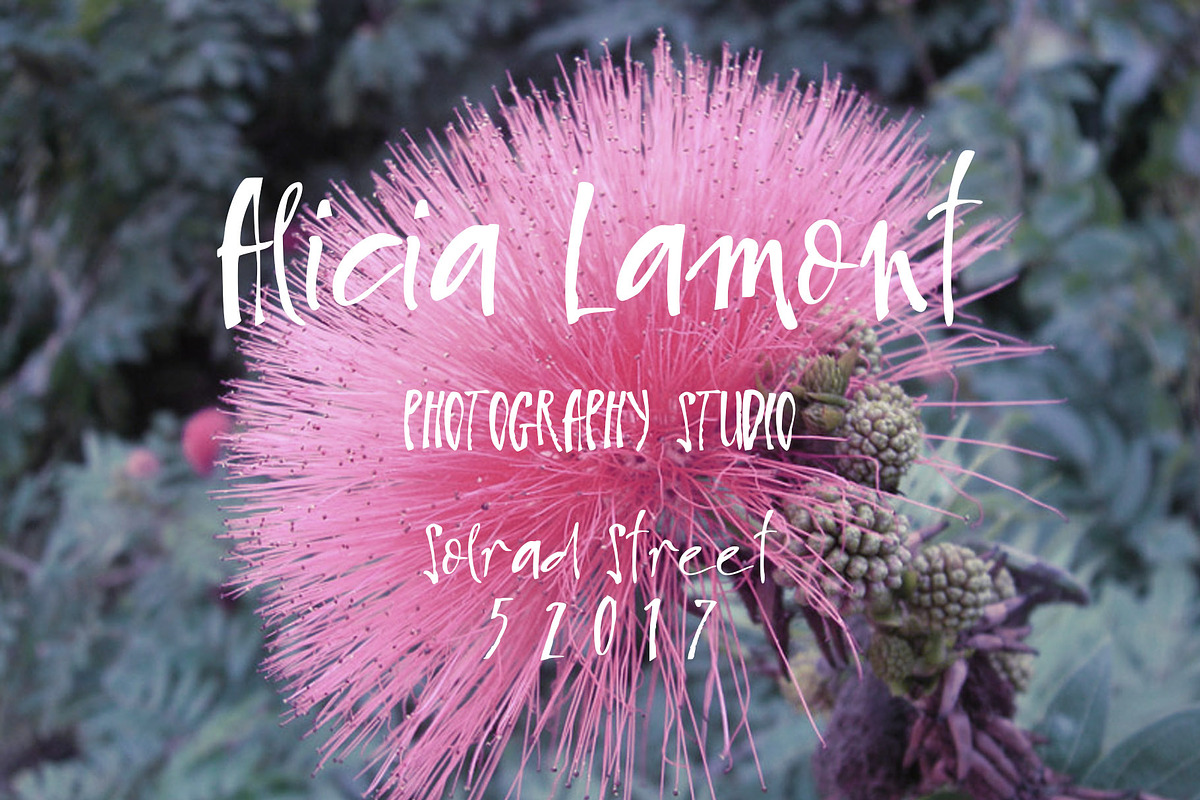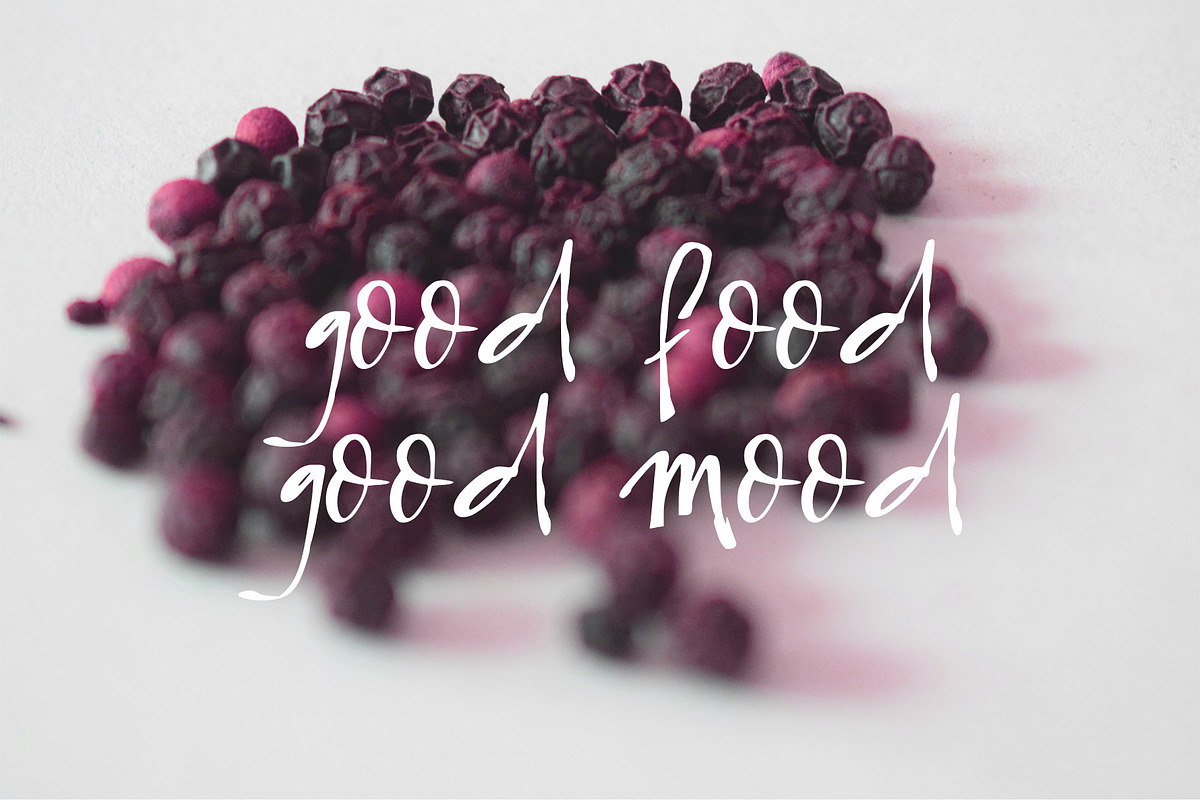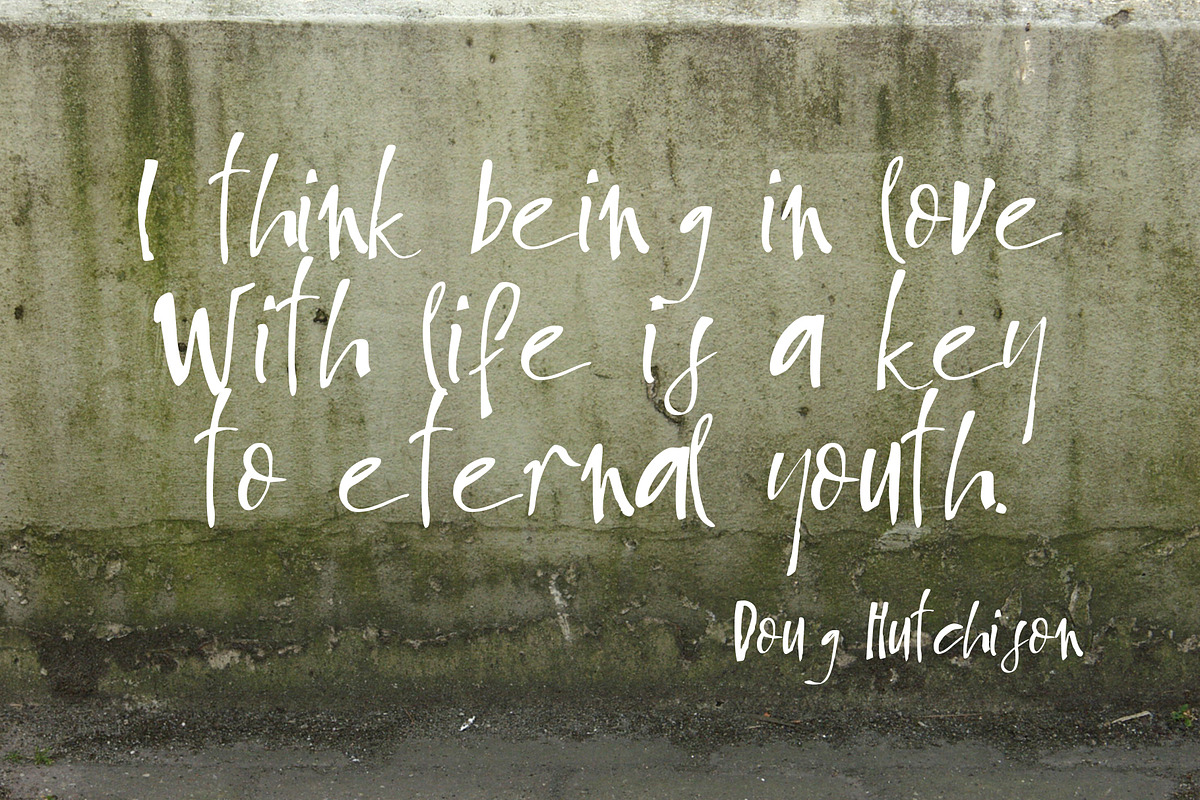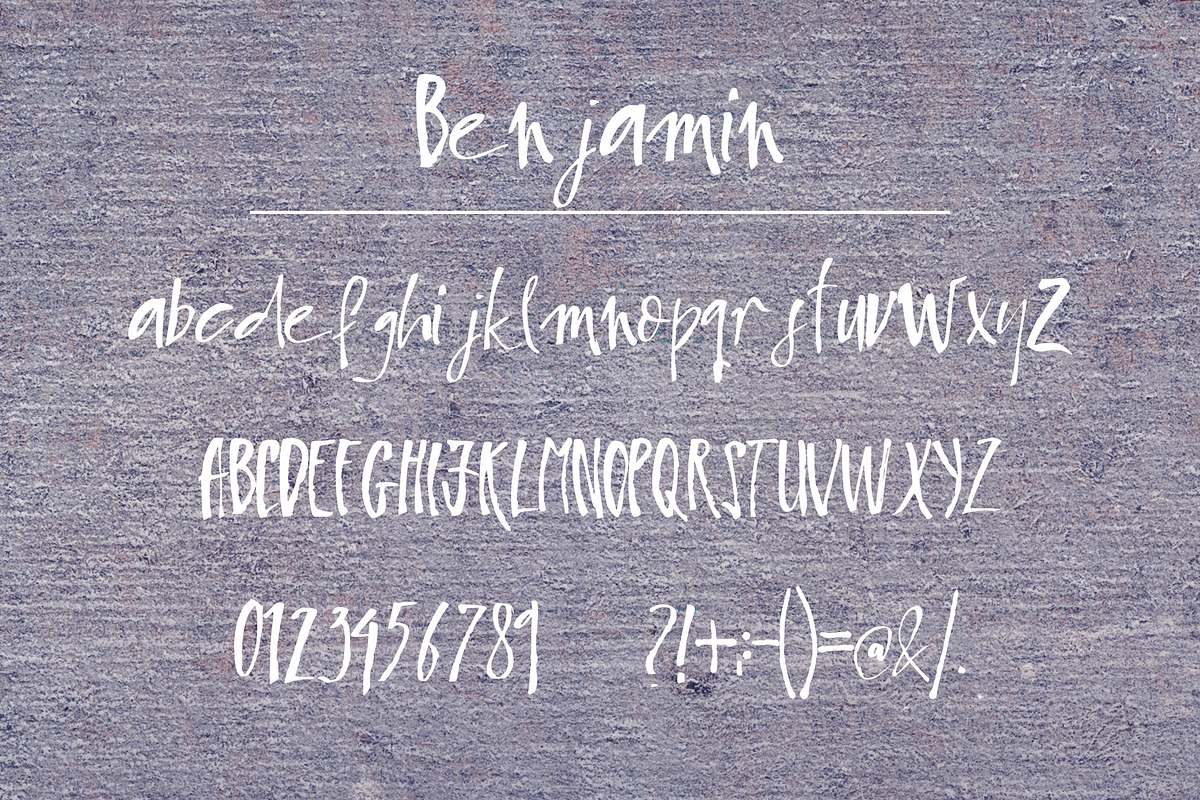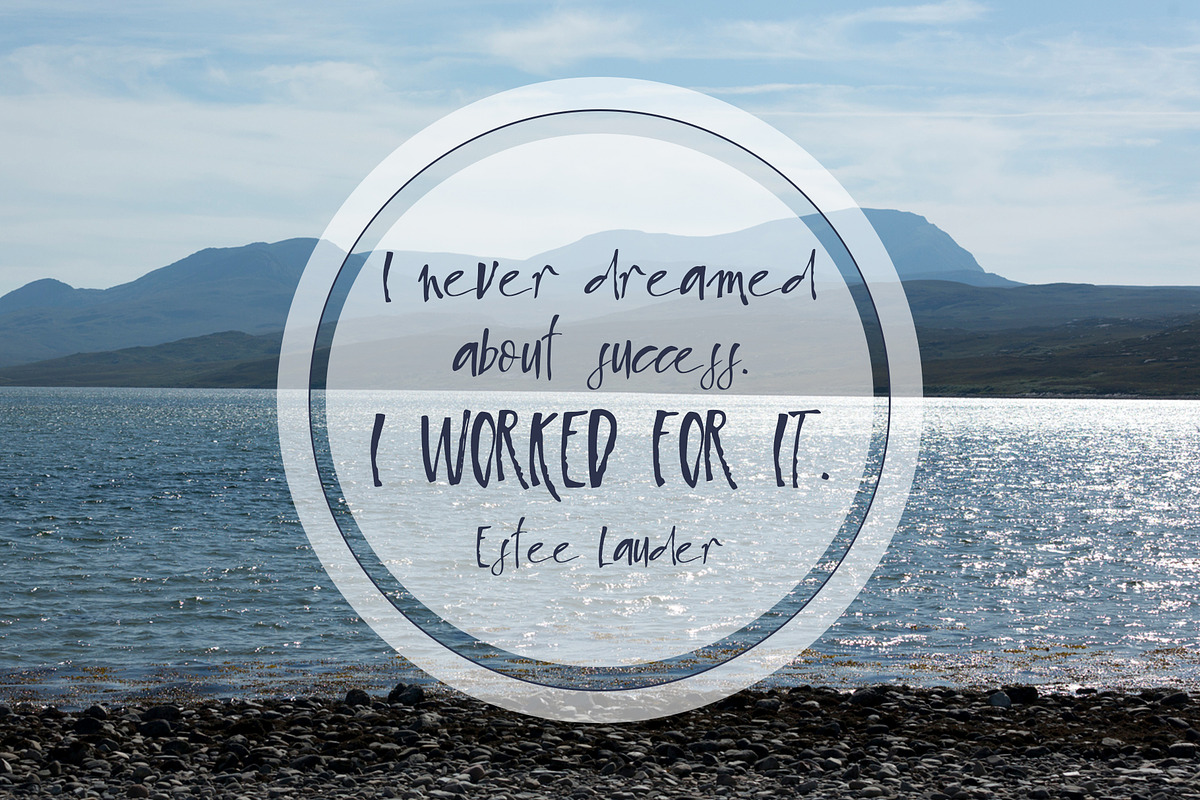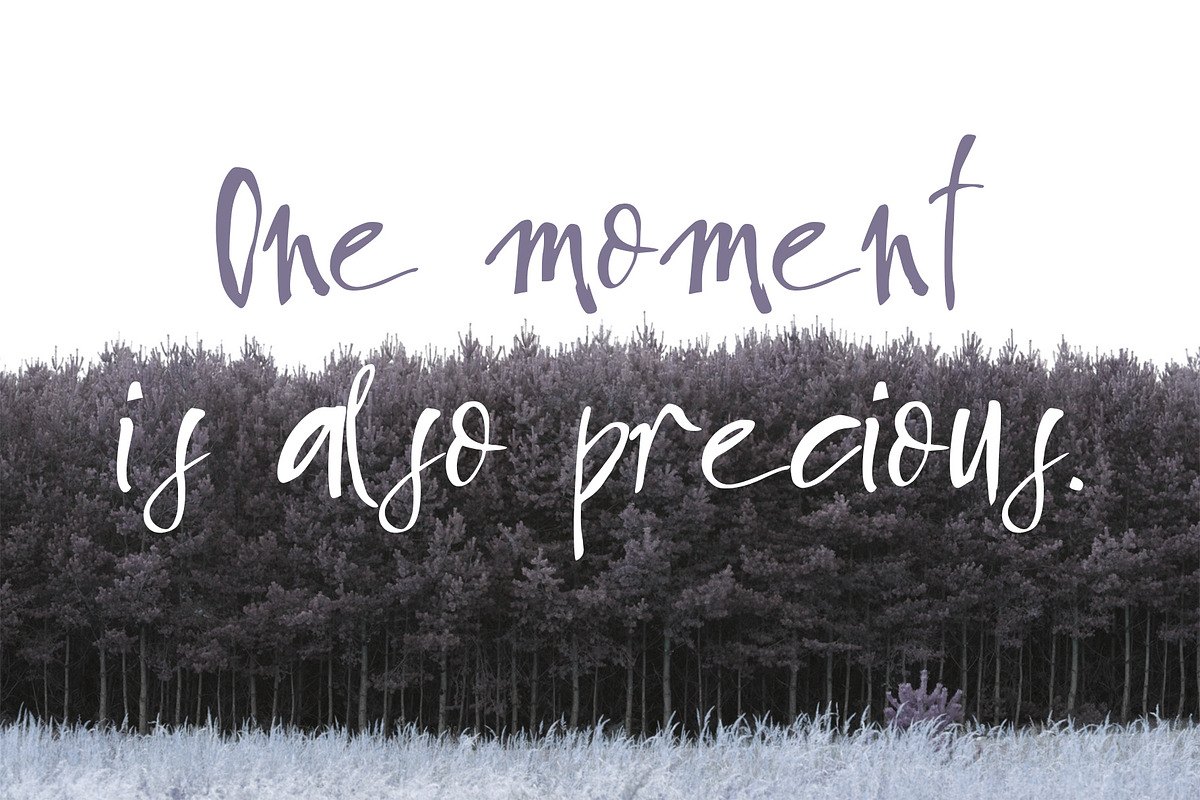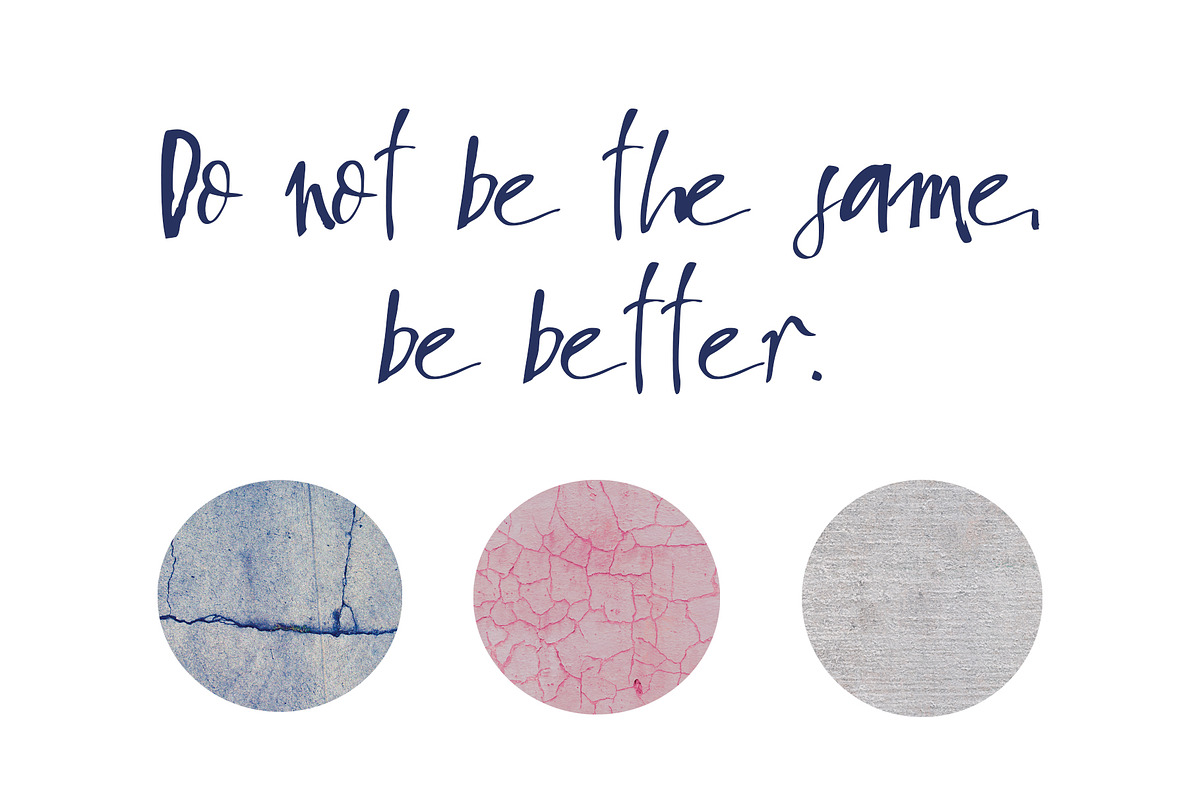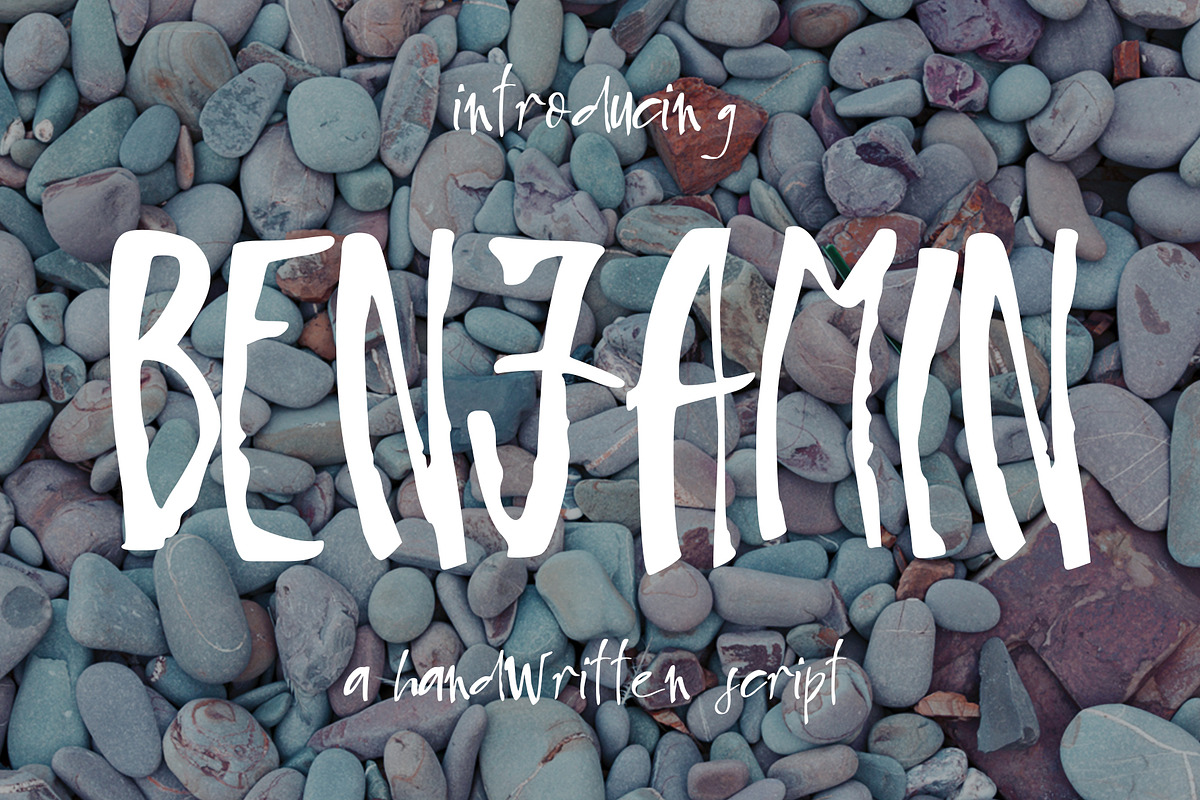
Benjamin Font
Introducing Benjamin, a beautiful freestyle font.💗A gorgeous script, perfect for any graphic and logo designs, wedding and birthday invitations.
- Benjamin font contains uppercase & lowercase characters, numbers and punctuations.